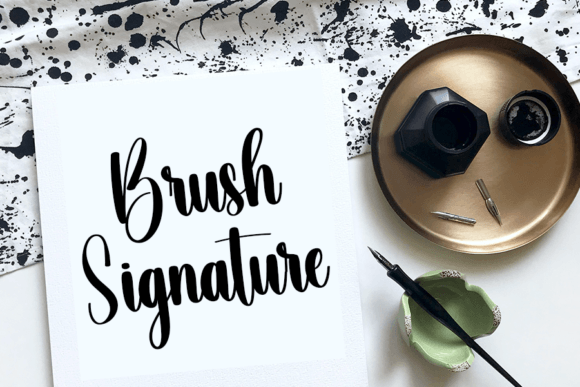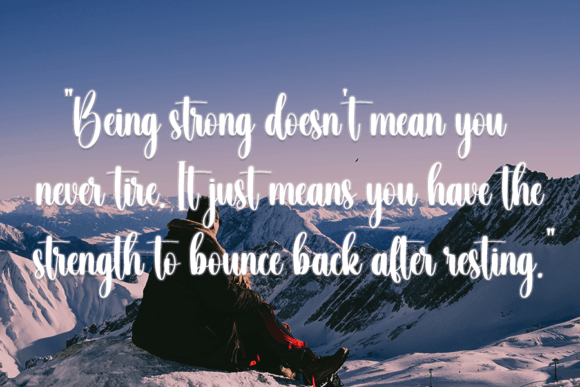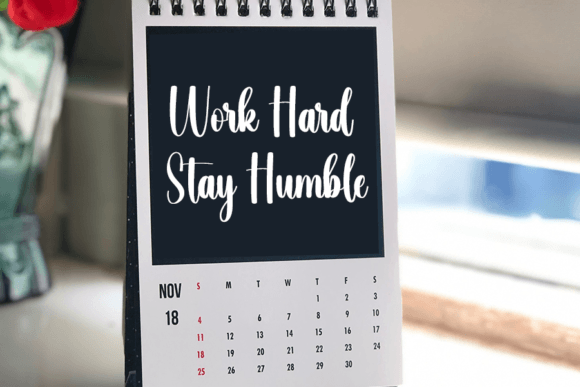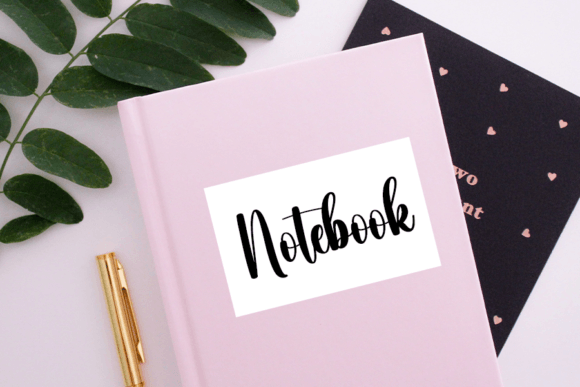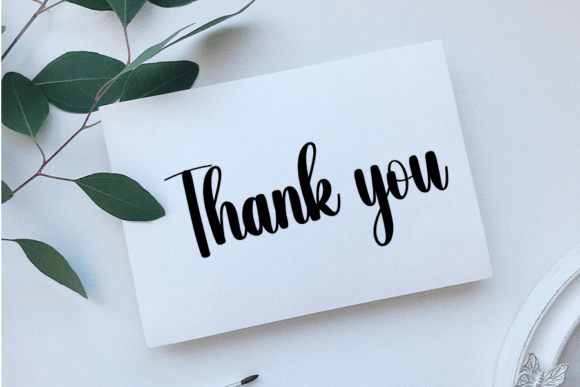
Unleash Your Inner Artist: The Magic of Boho Font
Have you ever sat down with a blank piece of paper and a pen, feeling the urge to create something truly unique and beautiful? It’s in those moments that we connect with our creative selves, and the world around us becomes a canvas waiting to be filled with color, texture, and personality. For designers and artists, finding the perfect font to bring their vision to life can be a game-changer.
Enter the Boho Font, a delicate handwritten font carefully crafted to add a touch of whimsy and charm to any design. Whether you’re creating invitations, labeling food products, or crafting titles, the Boho Font is the perfect tool to help you stand out from the crowd. With its unique, hand-drawn style, this font is a valuable asset for designers looking to add a touch of bohemian flair to their work.
Key Features of Boho Font
- Unique Characteristics: This font features a mix of elegant and whimsical elements, with intricate details and subtle flourishes that evoke a free-spirited, bohemian aesthetic.
Boho Font Review
Overall, I think Boho Font is a great choice for those looking for a unique and eclectic design aesthetic. ✨ The font is a beautiful blend of vintage and bohemian styles, making it perfect for projects that need a free-spirited feel. I love how the font is versatile enough to be used for both headings and body text.
- ✨ Unique and stylish design: Boho Font is a one-of-a-kind font that adds a touch of personality to any design project.
- ✨ High-quality glyphs: The font is well-crafted, with smooth lines and precise edges.
However, there are a few limitations to consider: ⚠️ The font may not be suitable for projects that require a more modern or minimalist look. Additionally, the font’s vintage feel may be too quirky for some designers.
- ⚠️ Limited versatility: While Boho Font is great for bohemian-inspired designs, it may not be the best choice for projects with a more contemporary aesthetic.
- ⚠️ Overuse potential: The font’s unique design may be too eye-catching, potentially leading to overuse or fatigue.
Overall, I think Boho Font is a solid choice for designers looking for a stylish and eclectic font. While it may have some limitations, its unique design and high-quality glyphs make it a great addition to any design project.
Tips for Getting the Most Out of Boho Font
For the most effective use of Boho Font, pair it with distressed or vintage textures and imagery. This will create a unique and eclectic look that is perfect for bohemian-inspired designs. You can also experiment with different font sizes and colors to add visual interest to your design.
Boho Font is perfect for:
- Bohemian-inspired designs
- Vintage and retro-themed designs
- Travel and adventure-themed designs
- Wellness and spiritual-themed designs